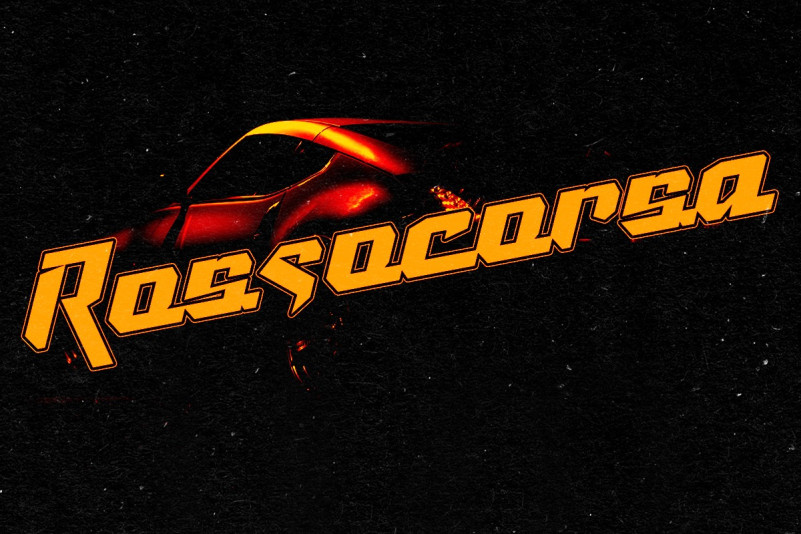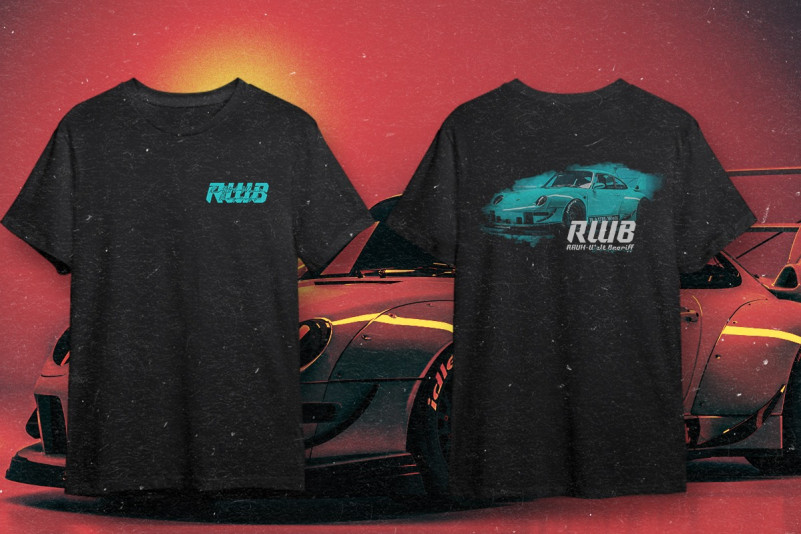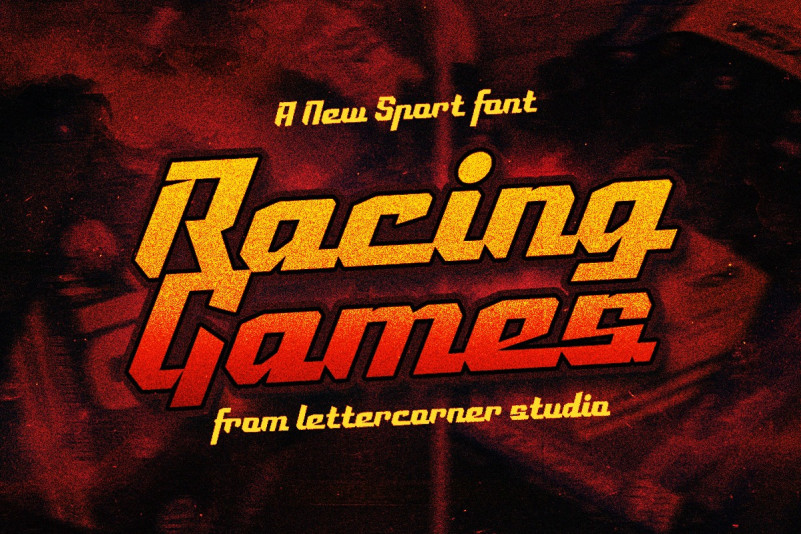
Racing Games Font
Racing Games Font a brand new display font. It’s quirky letterforms make this font perfect for branding, headlines, logotype, stickers, editorial design, and more.